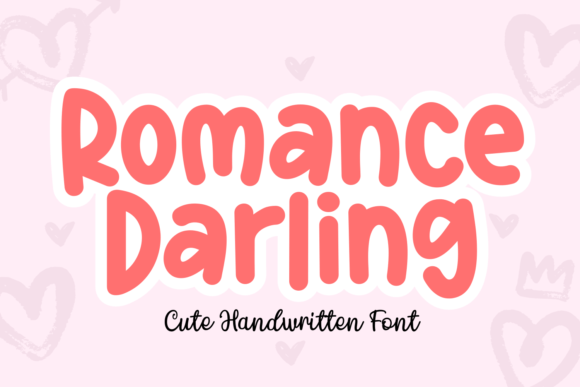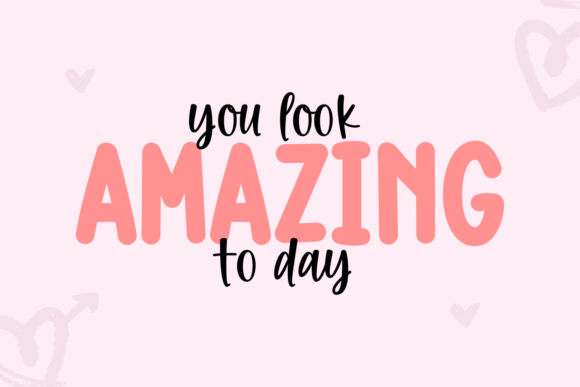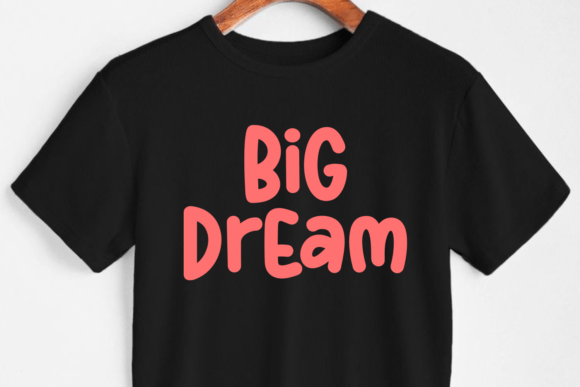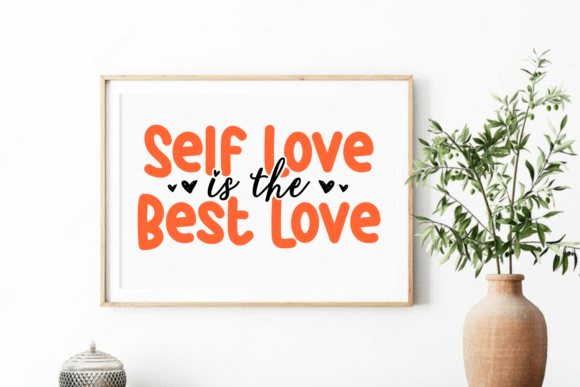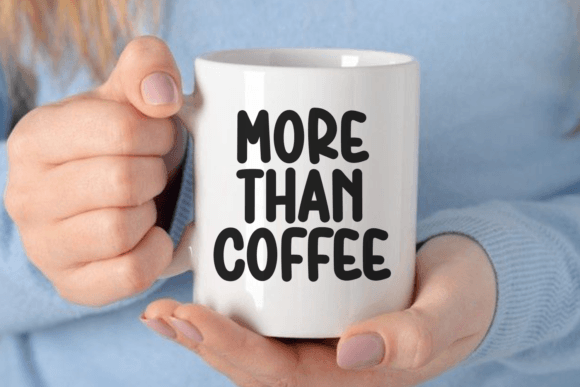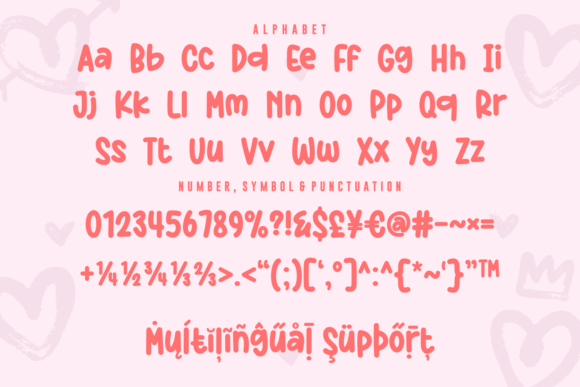
Romance Darling Font
Romance Darling is a sweet and playful handwritten font that adds a touch of charm to your projects. With its cute and lovable style, this font is perfect for creating a warm and inviting atmosphere. Whether you’re crafting greeting cards, invitations, or anything that requires a delightful touch, Romance Darling is the perfect choice. Embrace the sweetness of this font and let it bring a dash of romance to your designs.